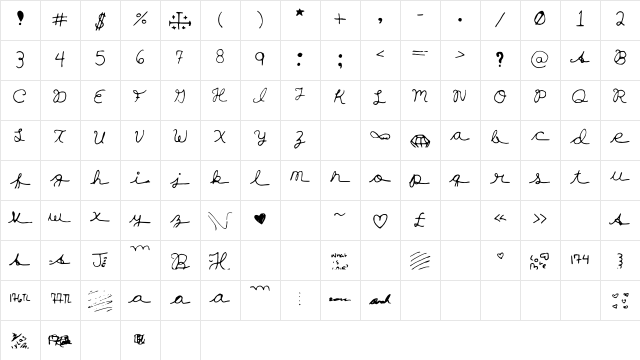
Complete hannahfont Medium glyph index. Displaying only characters natively supported by hannahfont Medium font.
hannahfont is a composed and adaptable typeface that performs quietly and consistently across a wide range of design contexts.